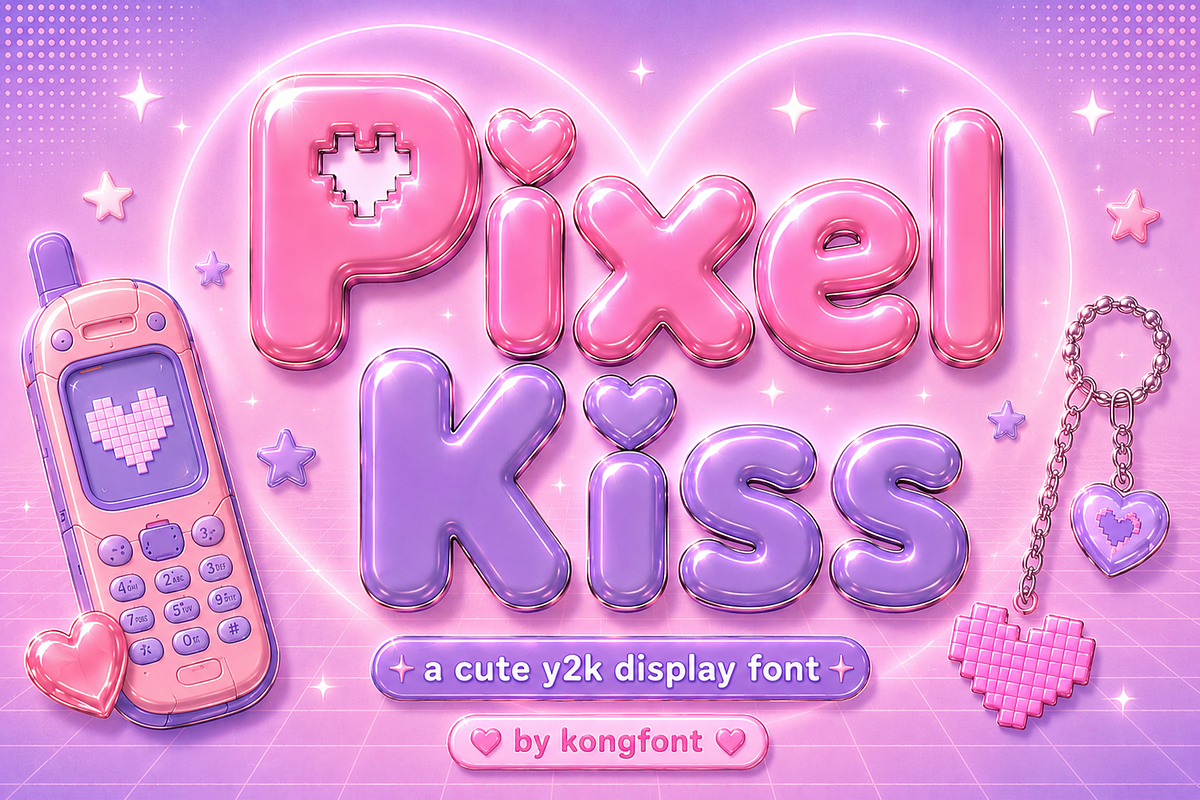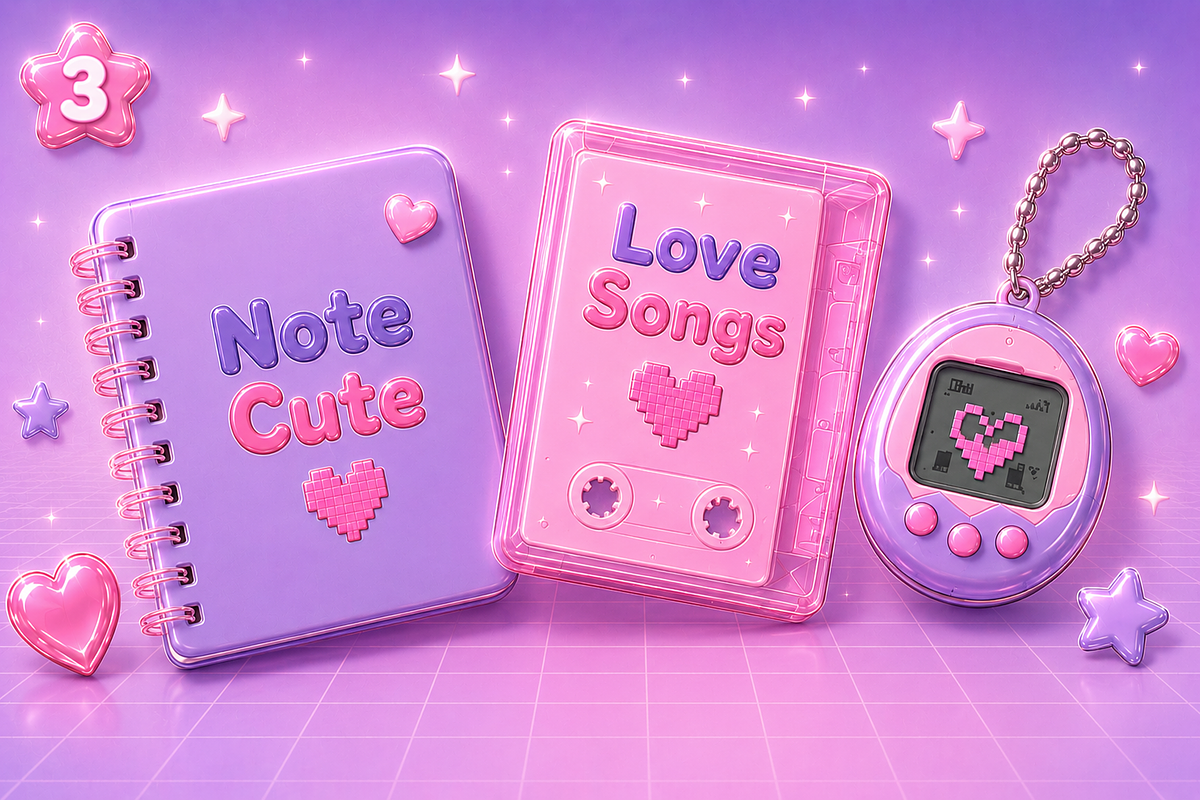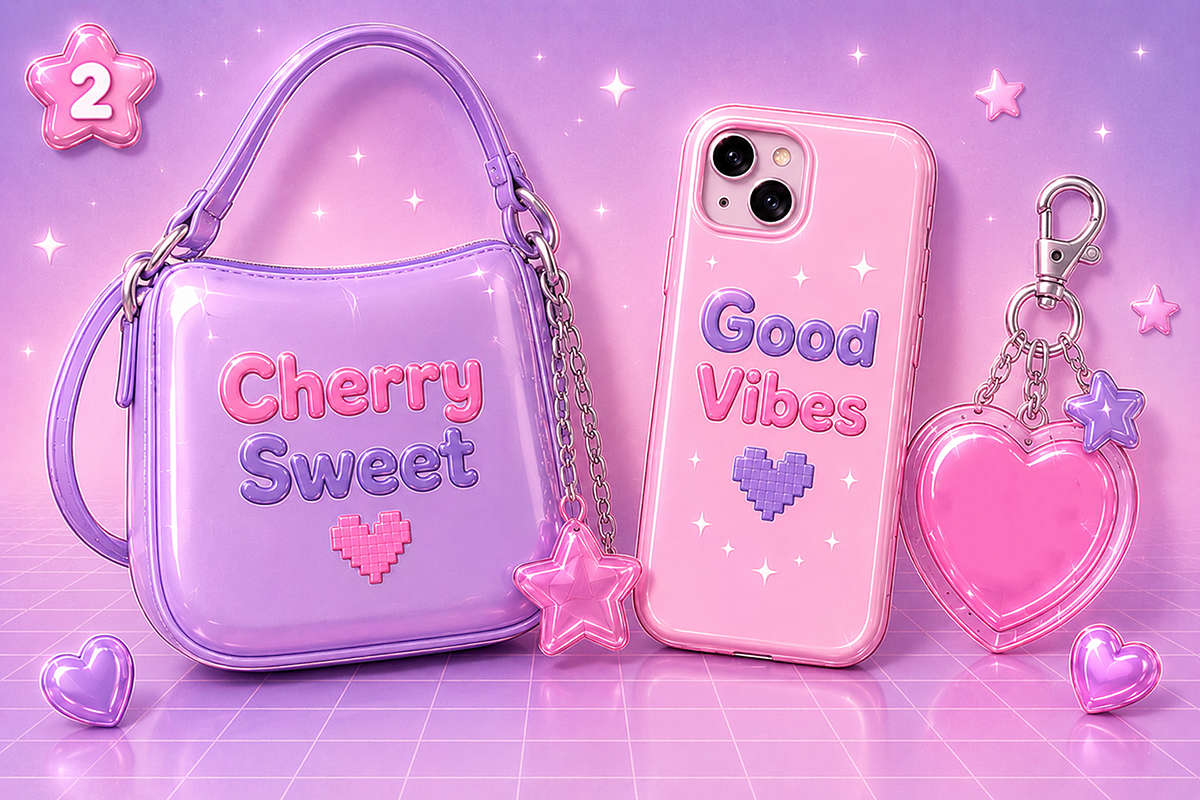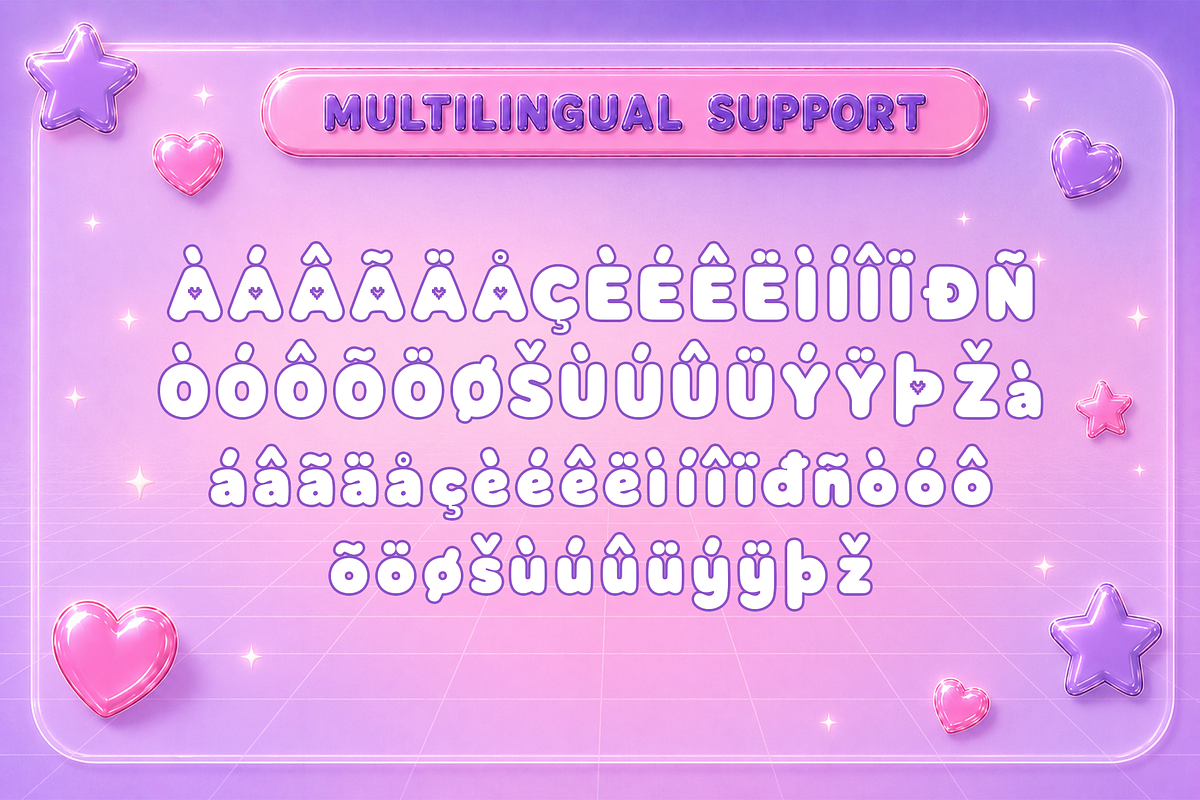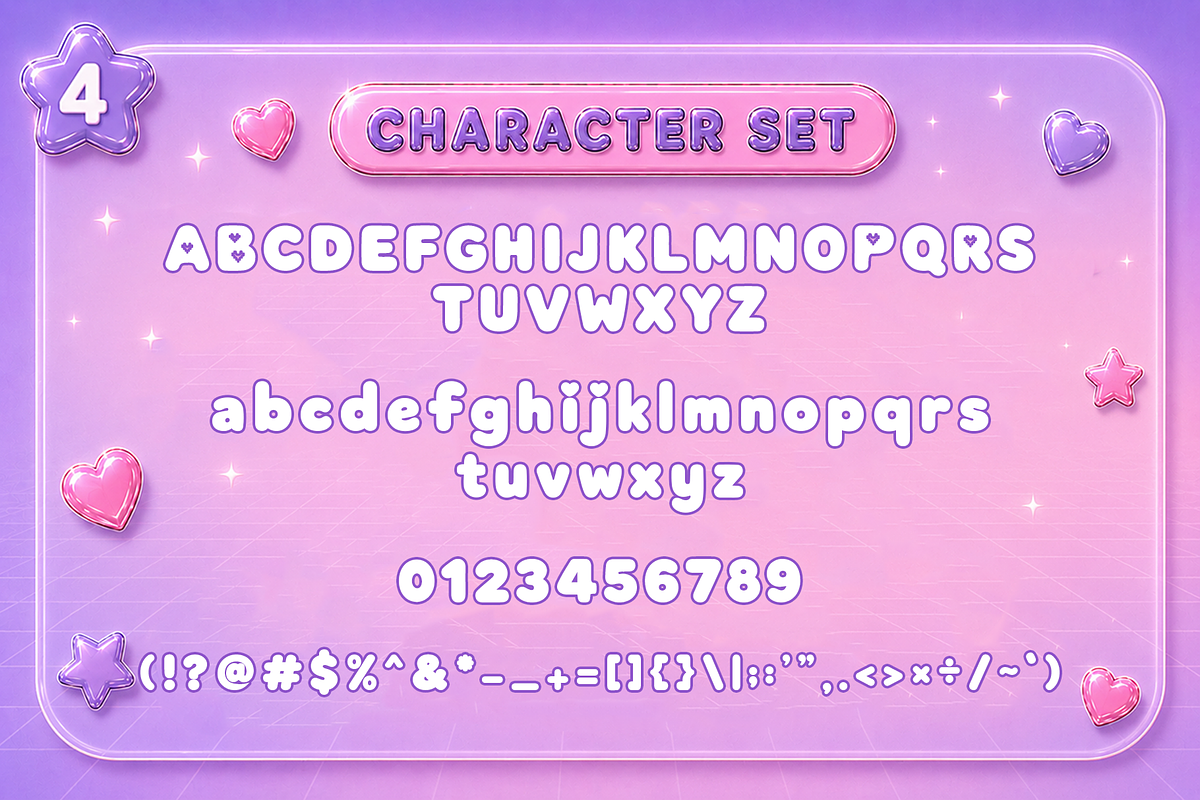
Pixel Kiss - Cute Y2K Display Font
Meet Pixel Kiss, a cute Y2K display font that combines nostalgic digital aesthetics with charming modern creativity. Inspired by the iconic pixel culture, colorful internet era, and playful design trends of the early 2000s, this font features adorable letterforms, retro-futuristic details, and a fun personality that instantly captures attention. Its unique style brings a perfect blend of sweetness, nostalgia, and trendy Y2K appeal.
Carefully crafted for versatility, Pixel Kiss includes uppercase and lowercase characters, numerals, punctuation, symbols, and multilingual support. Its playful display style maintains readability while delivering a bold visual impact, making it suitable for both print and digital applications across a wide range of creative industries.